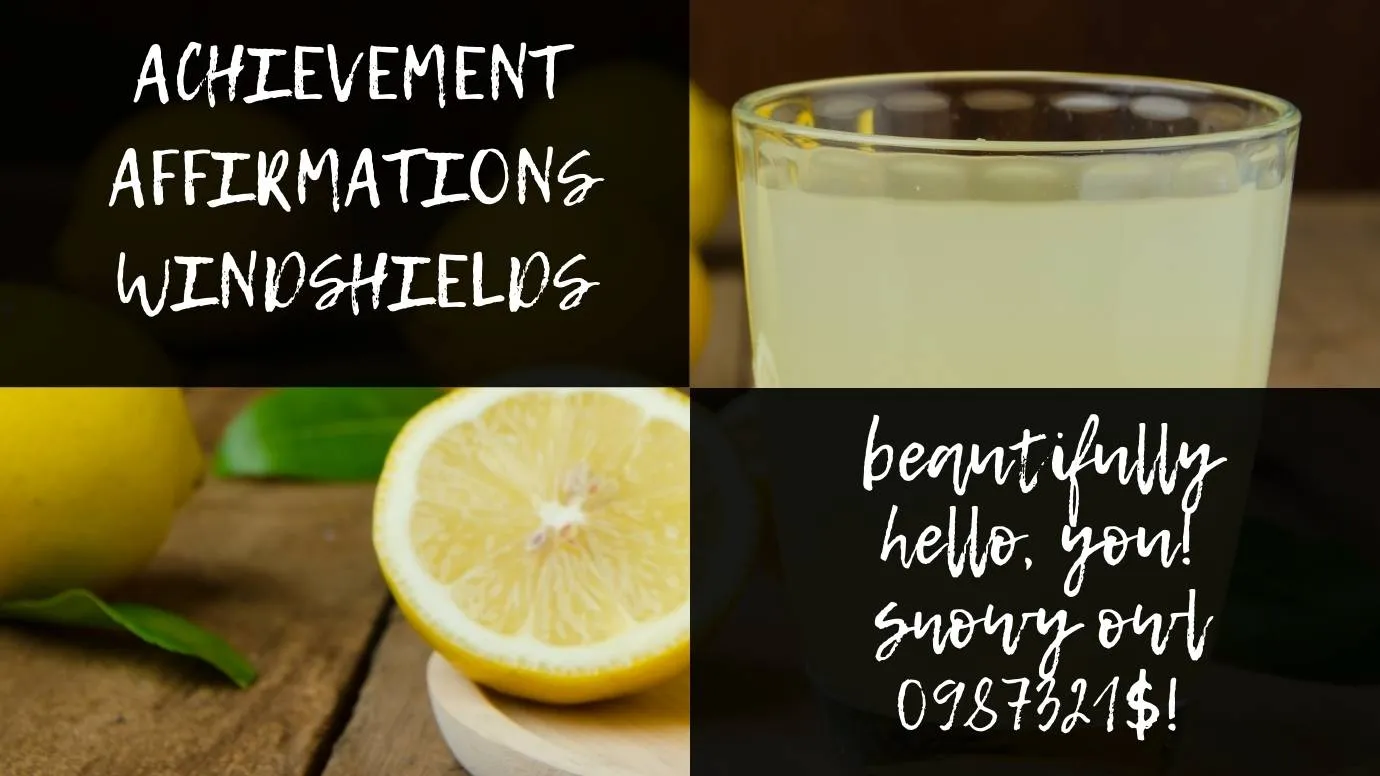
I shall present to you an awesome and attractive typeface in this post. Lemon Tuesday Font is an attractive and artistic typeface. It is a handwritten typeface and belongs to the Script family. This typeface is available in one regular style. This typeface is created with ink and pen.
This typeface has a complete set of characters including capital and small letters, numbers, special characters, and symbols. This typeface is similar to the high tide font. This typeface is mostly used in posters, banners, and invitation cards.
You can use this typeface with the beach font to make your text styles elegant and unique. You can use this typeface in posters, branding, fashion designing, presentations, product packaging, banners, book titles, T-shirt designs, magazine covers, and many more graphic designs.
Designer of Lemon Tuesday Font
This attractive and artistic typeface is designed by two Russian typeface designers Ivan Gladkikh and Daria Kwon for the foundry Typetype in 2016.
This font style is designed with a unique and consistent style. This single attractive style is a combination of different features, including capital and small alphabets, digits, punctuations, glyphs, symbols, special characters, and many different language support.
| Name | Lemon Tuesday Font |
| Designer | Ivan Gladkikh & Daria Kwon |
| Foundry | Typetype |